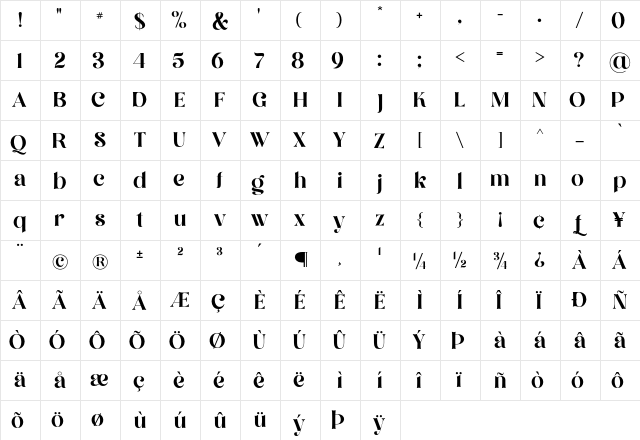
Million Dreams Regular
Design Context for Million Dreams Typeface
Million Dreams is a composed and adaptable typeface that performs quietly and consistently across a wide range of design contexts.